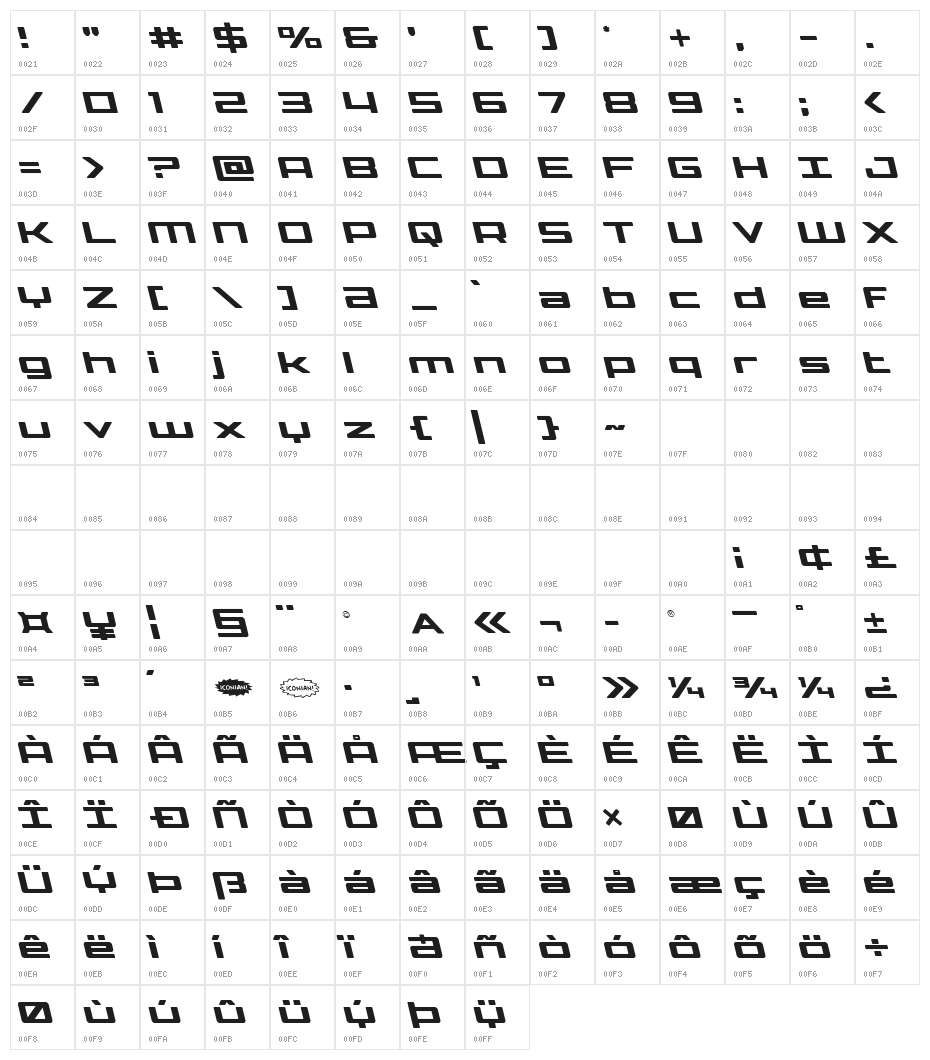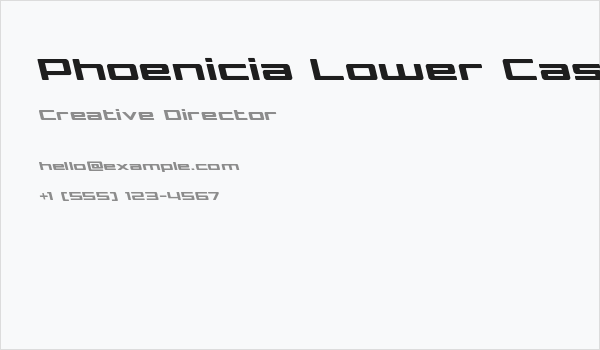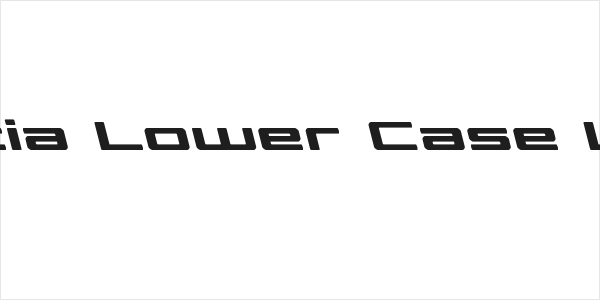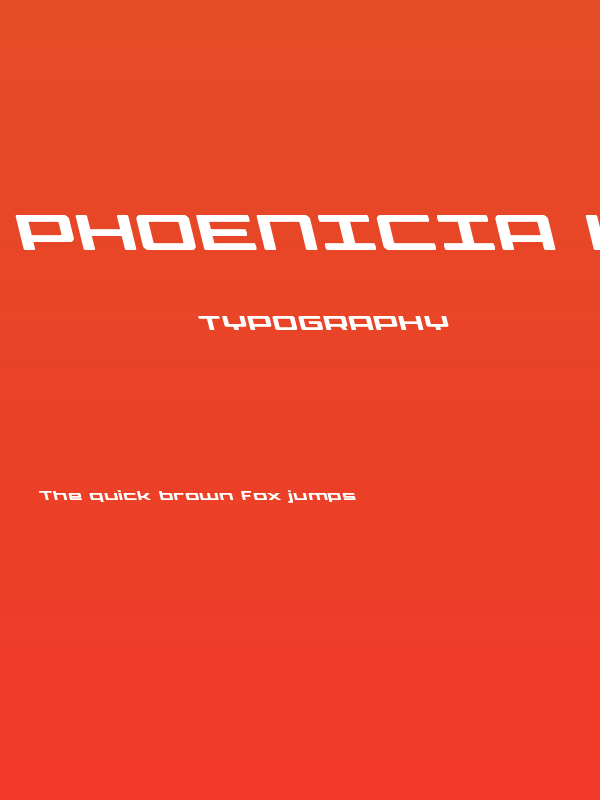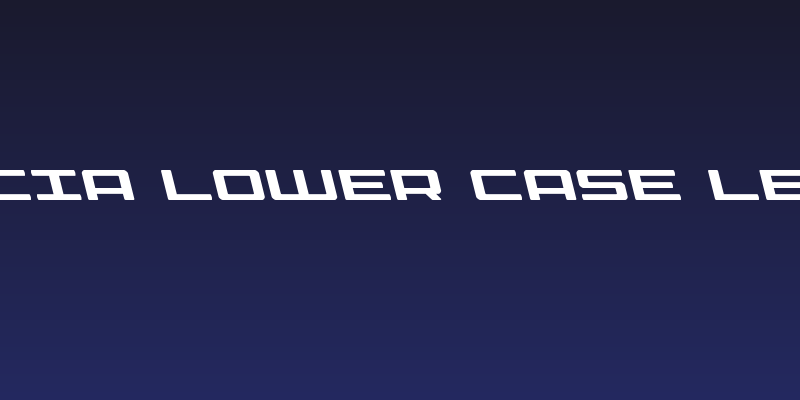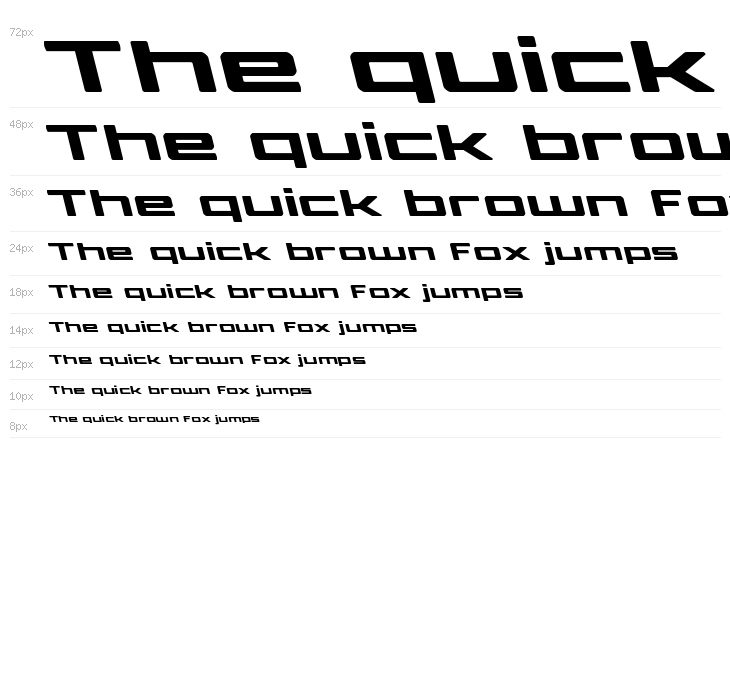
Phoenicia Lower Case Leftalic Font
Phoenicia Lower Case Leftalic Description
This font features a modern, geometric style with a distinct italic slant, giving it a dynamic and forward-moving appearance. The characters are bold and have a uniform stroke width, contributing to a strong and impactful presence. The angular design of the letters and numbers adds a futuristic touch, making it suitable for contemporary projects. The spacing between characters is tight, enhancing the compact and cohesive look of the text. Special characters maintain the same bold and angular style, ensuring consistency across all elements.